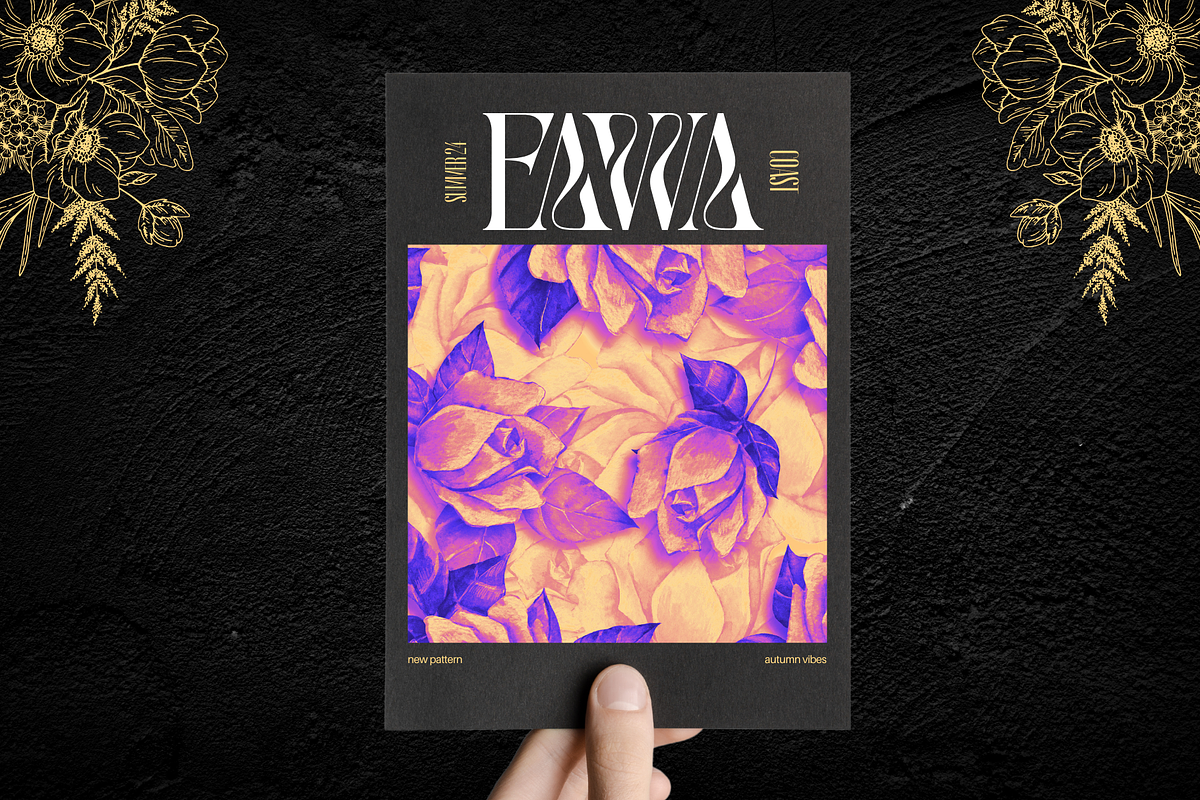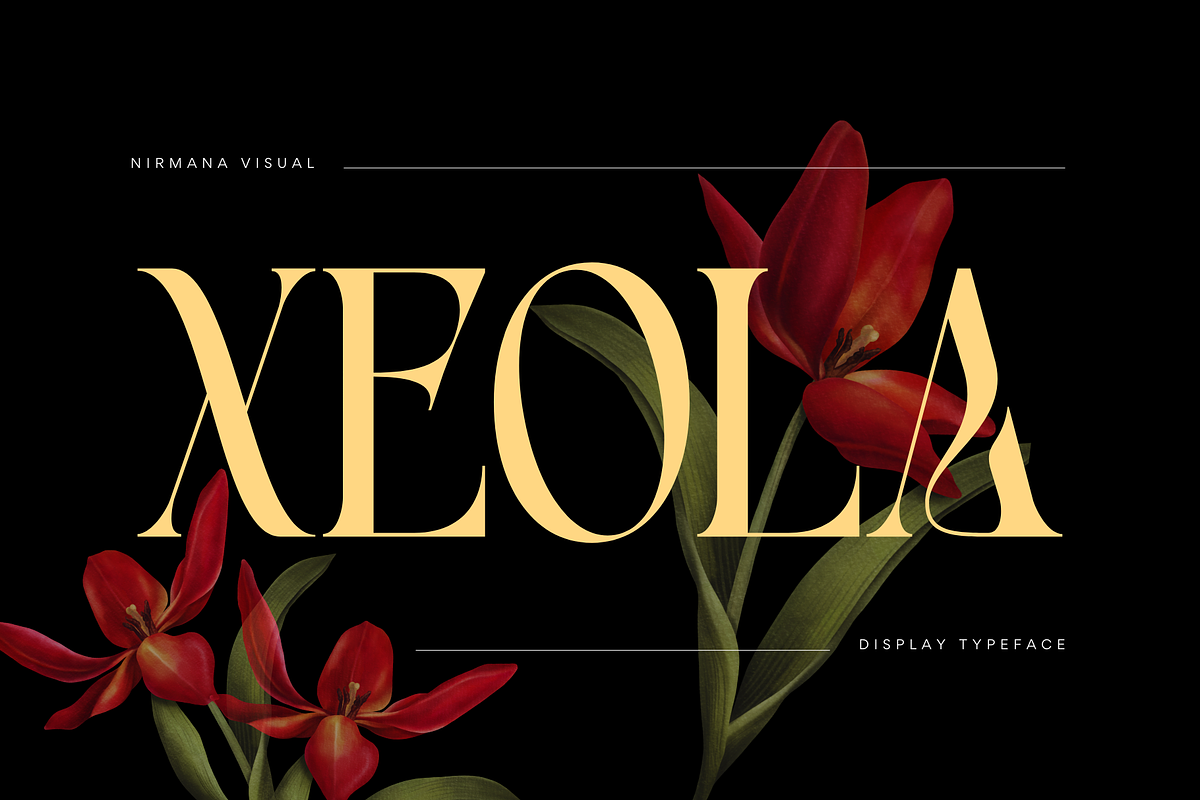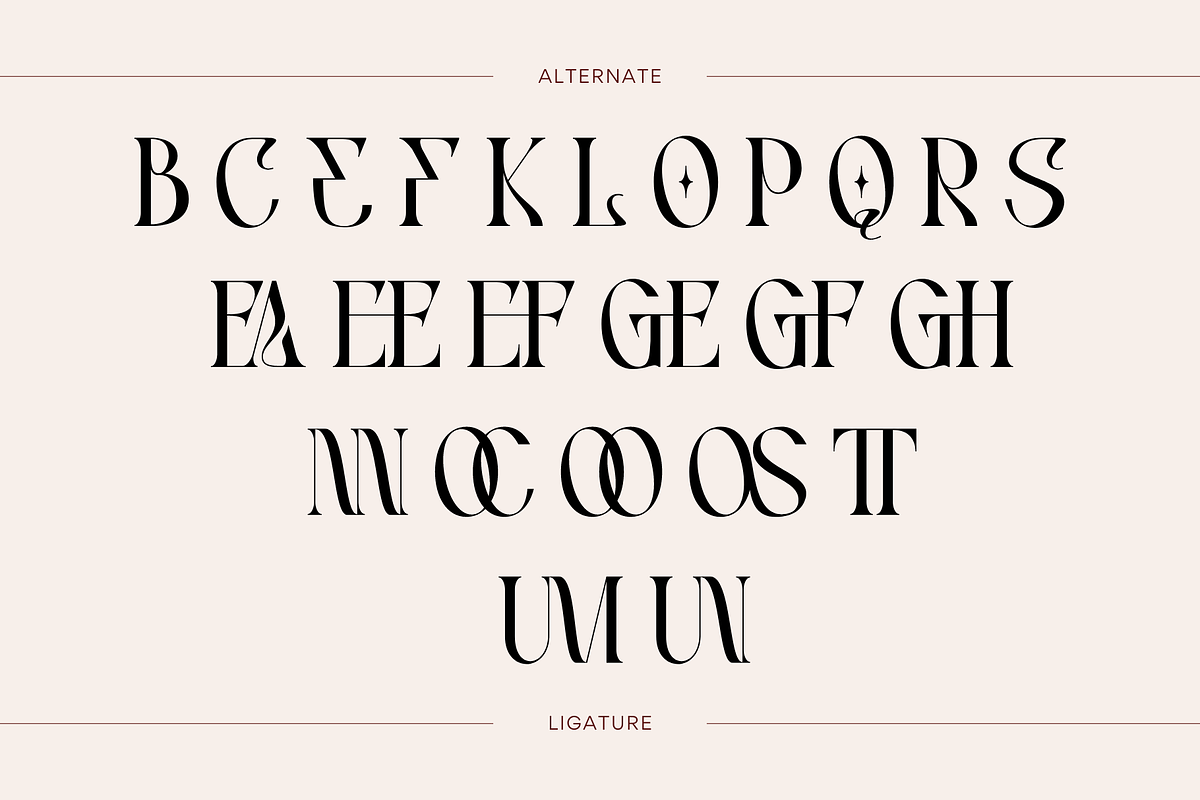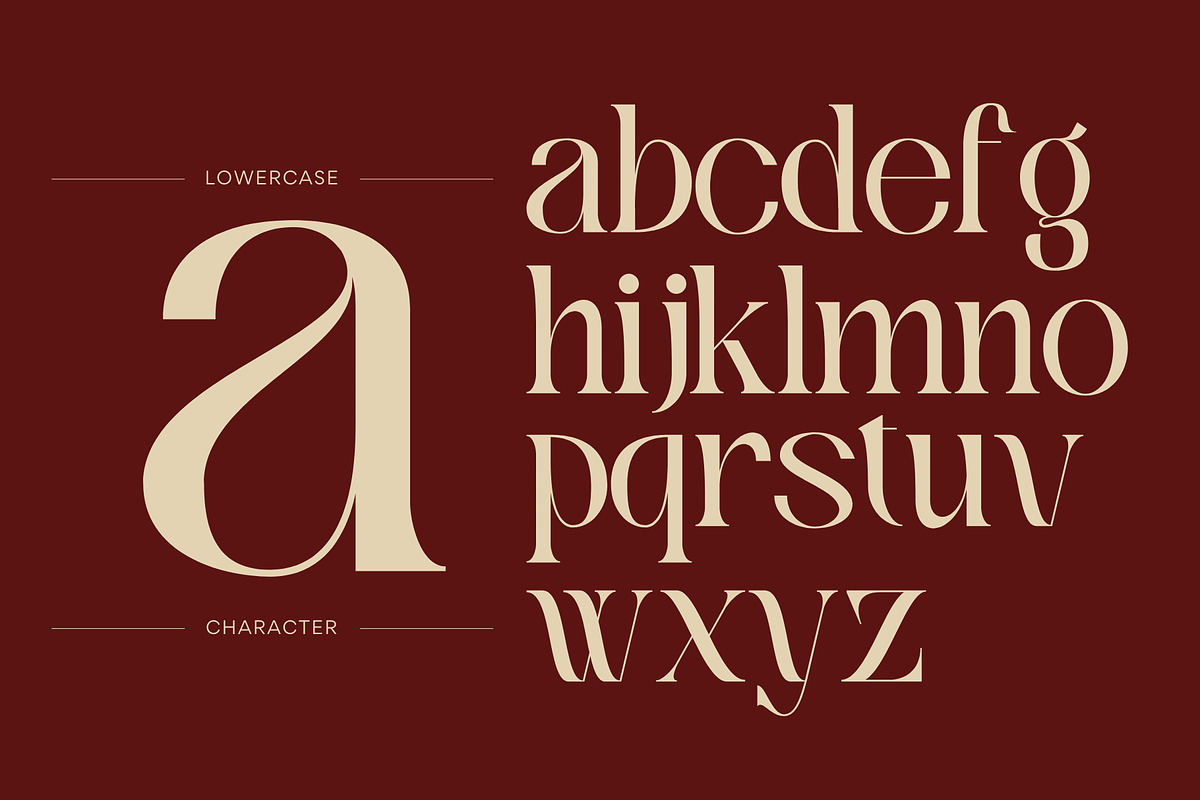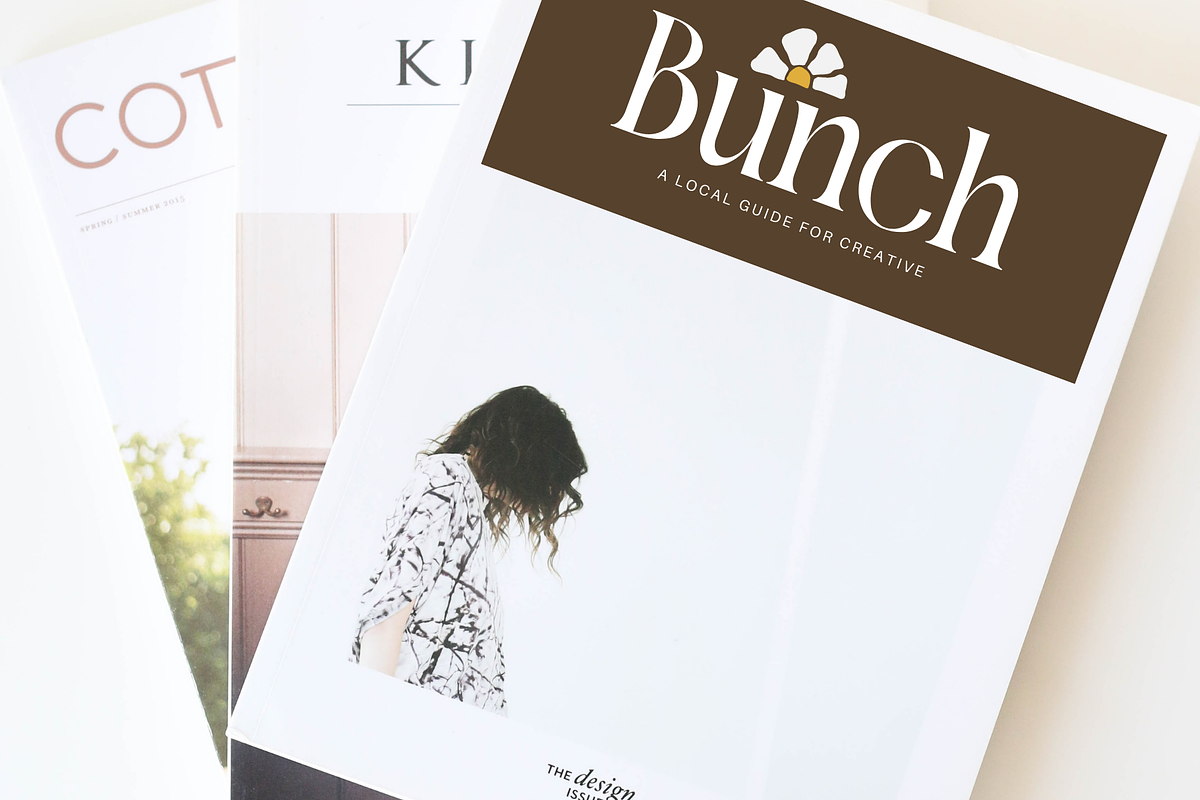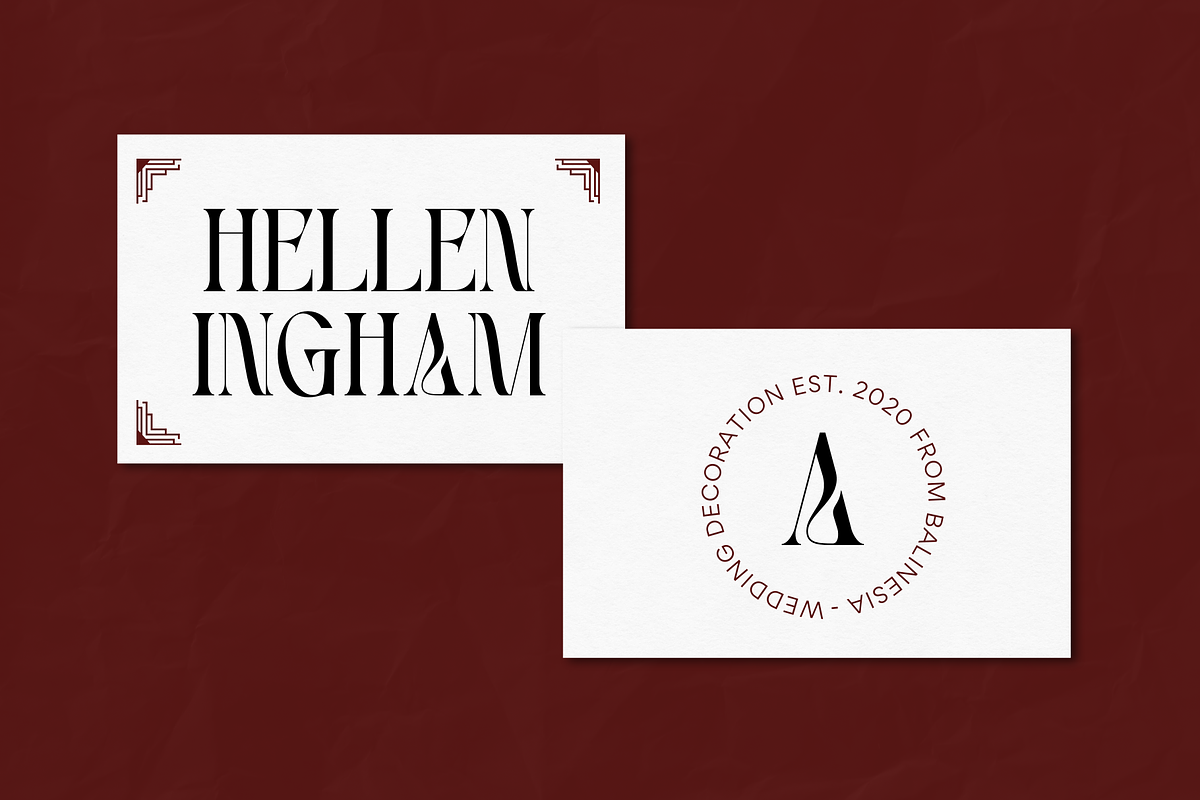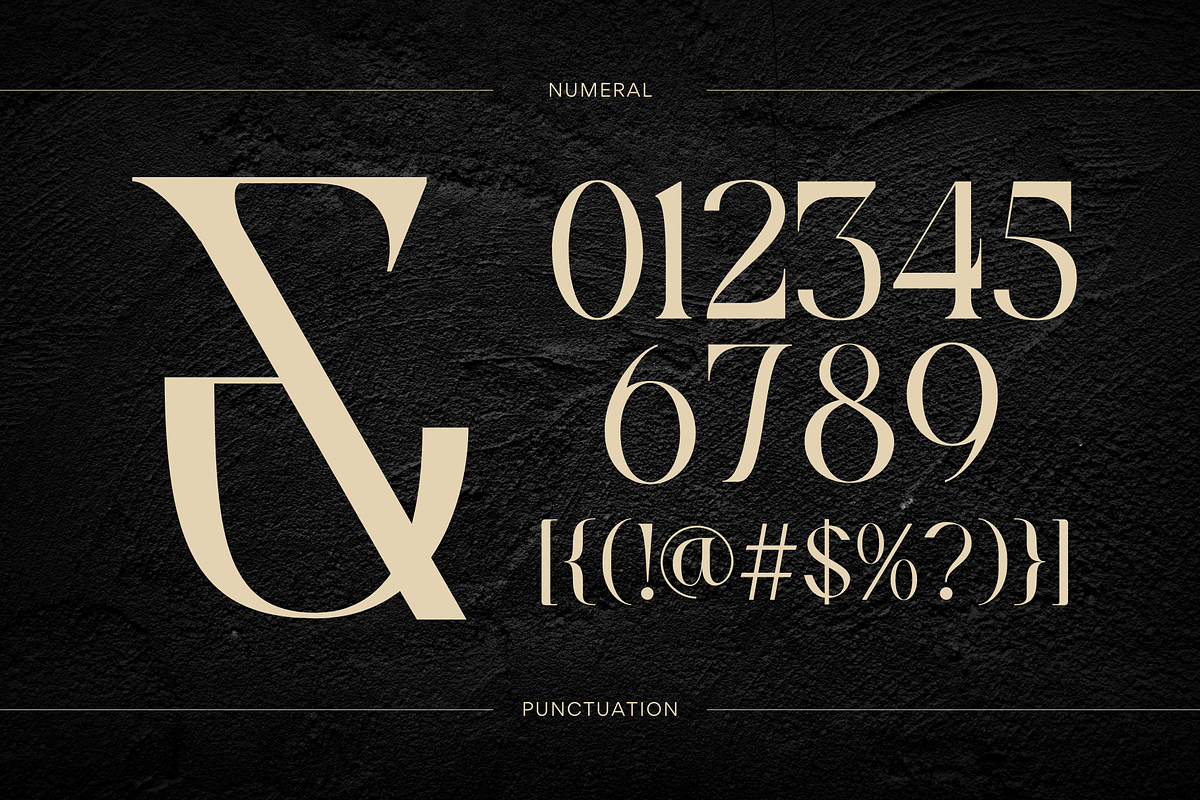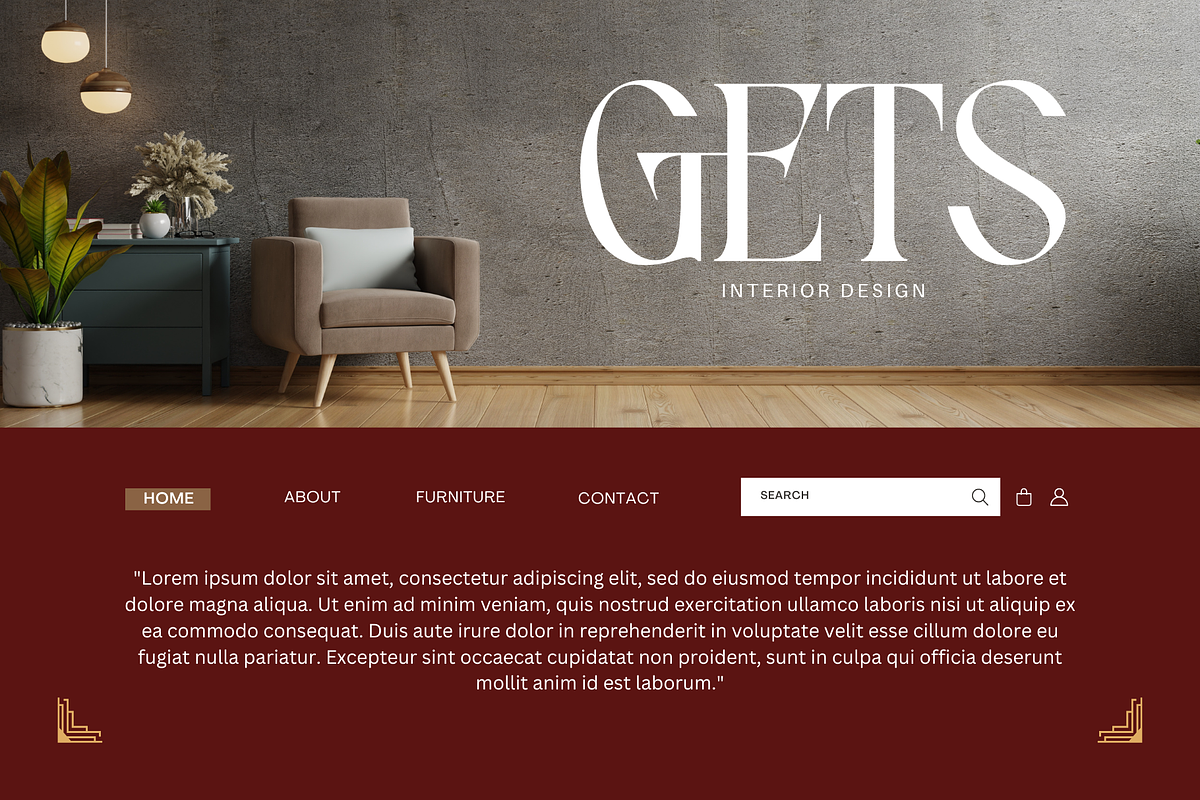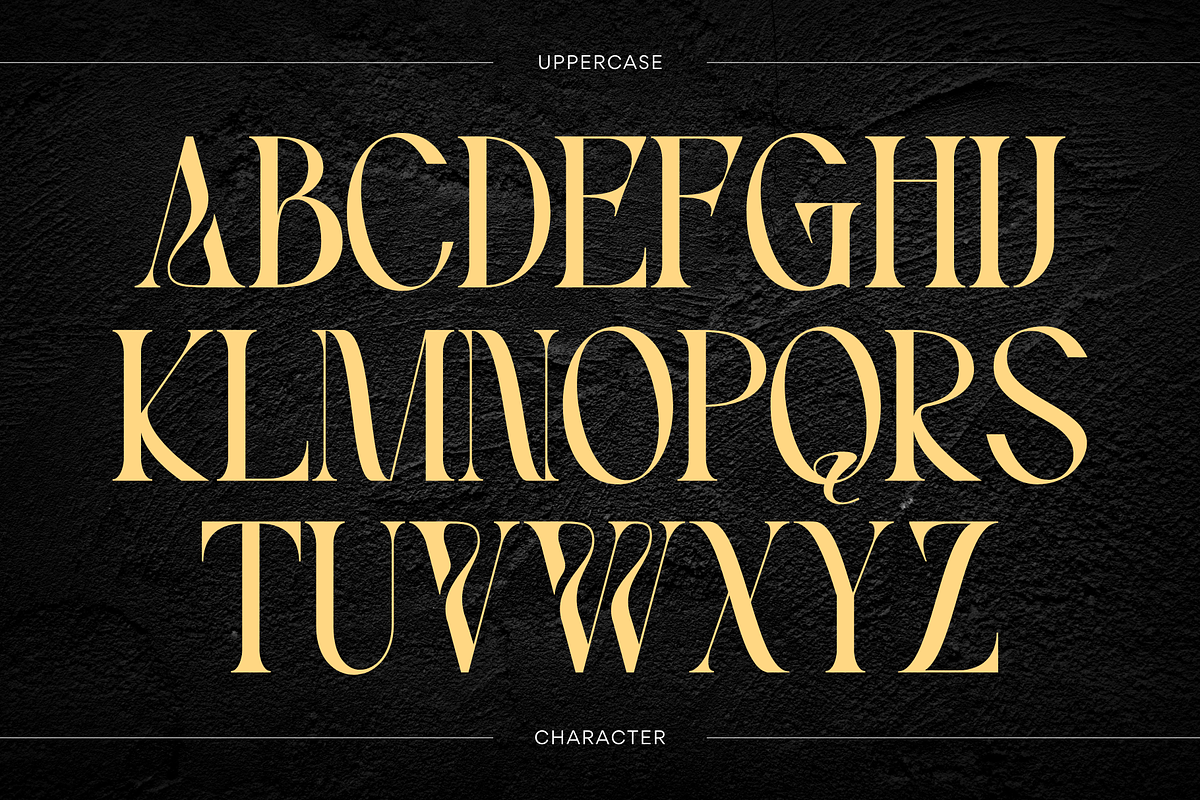
Xeola - Modern Logo Font
Xeola Font offers beautiful typographic harmony for a diversity of design projects, including logos & branding, social media posts, advertisements & product designs.